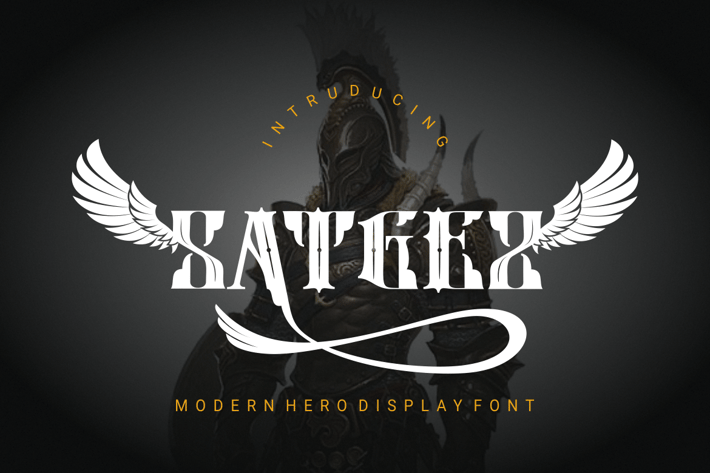
SATGEZ - Mdern Hero Display Font
Proudly present our new product SATGEZ - Mdern Hero Display Font
is a modern and authentic font. Perfect for professional needs and product branding, this font is suitable for any branding project such as quotes, logos, blog headers, posters, ribbons, letters, invitations, stationery, etc... Designed to be versatile and flexible that can be used on a variety of projects and media. extraordinary in a variety of contexts.